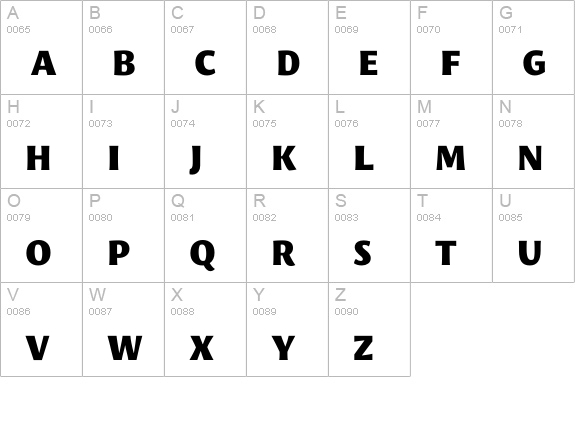
Leksa Sans ExtraBold is an extra-heavy, attention-grabbing variant in the Leksa typeface family \xE2\x80\x94 well suited to high-impact headlines, posters, and bold branding.
Leksa Sans ExtraBold is a striking and powerful font that demands attention with its bold presence. Its strong and sturdy letterforms exude confidence and make a bold statement in any design project. The ExtraBold weight adds emphasis and impact, making it perfect for headlines, logos, and other display text. This versatile typeface combines modern aesthetics with a touch of classic elegance, making it suitable for a wide range of design applications. Whether you're creating posters, banners, packaging, or branding materials, Leksa Sans ExtraBold will ensure your message stands out and leaves a lasting impression. The best part is, Leksa Sans ExtraBold is available for free download at FontsMarket.com. So you can elevate your designs with this premium font without breaking the bank. Don't miss out on this opportunity to add a touch of boldness and sophistication to your projects with Leksa Sans ExtraBold.